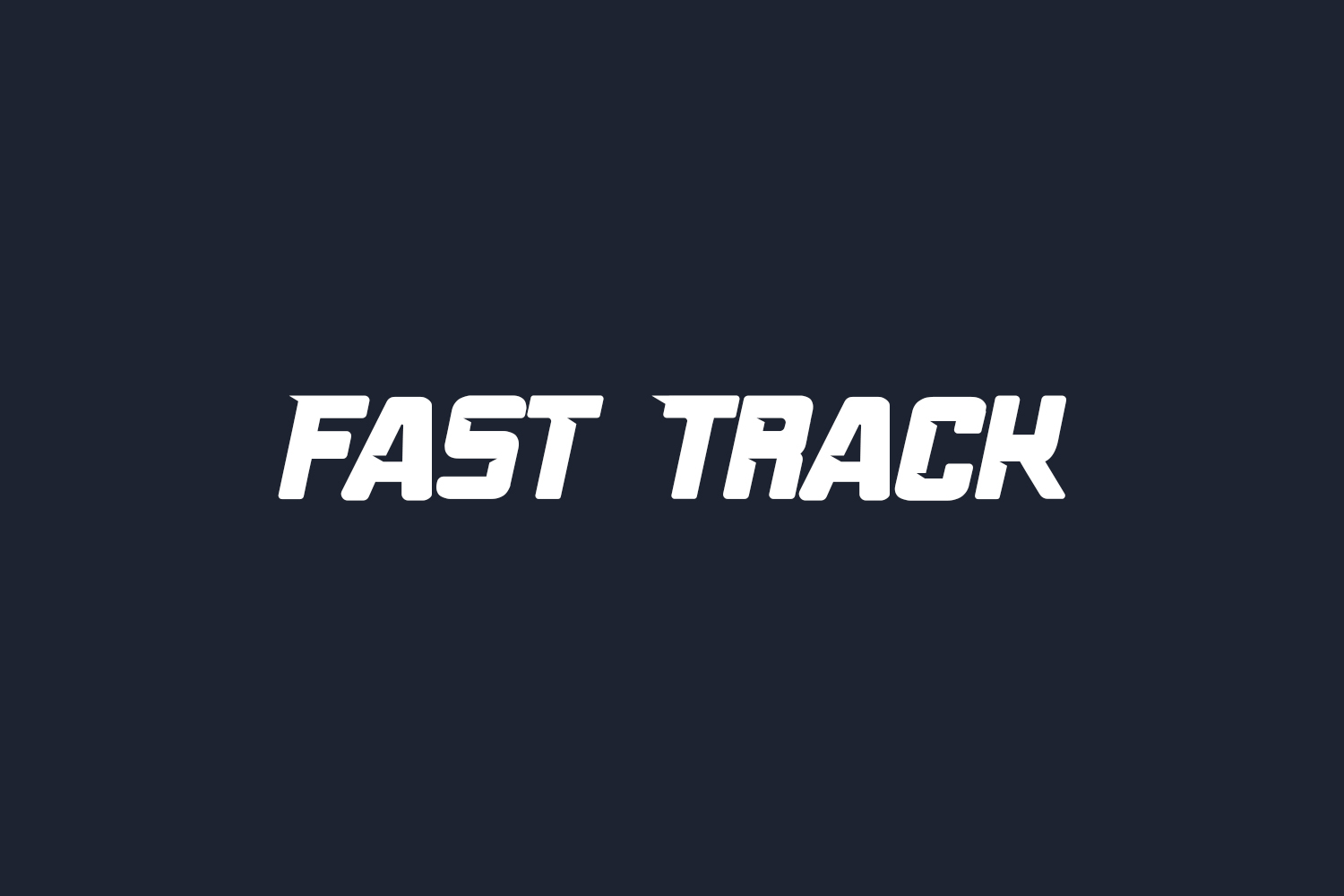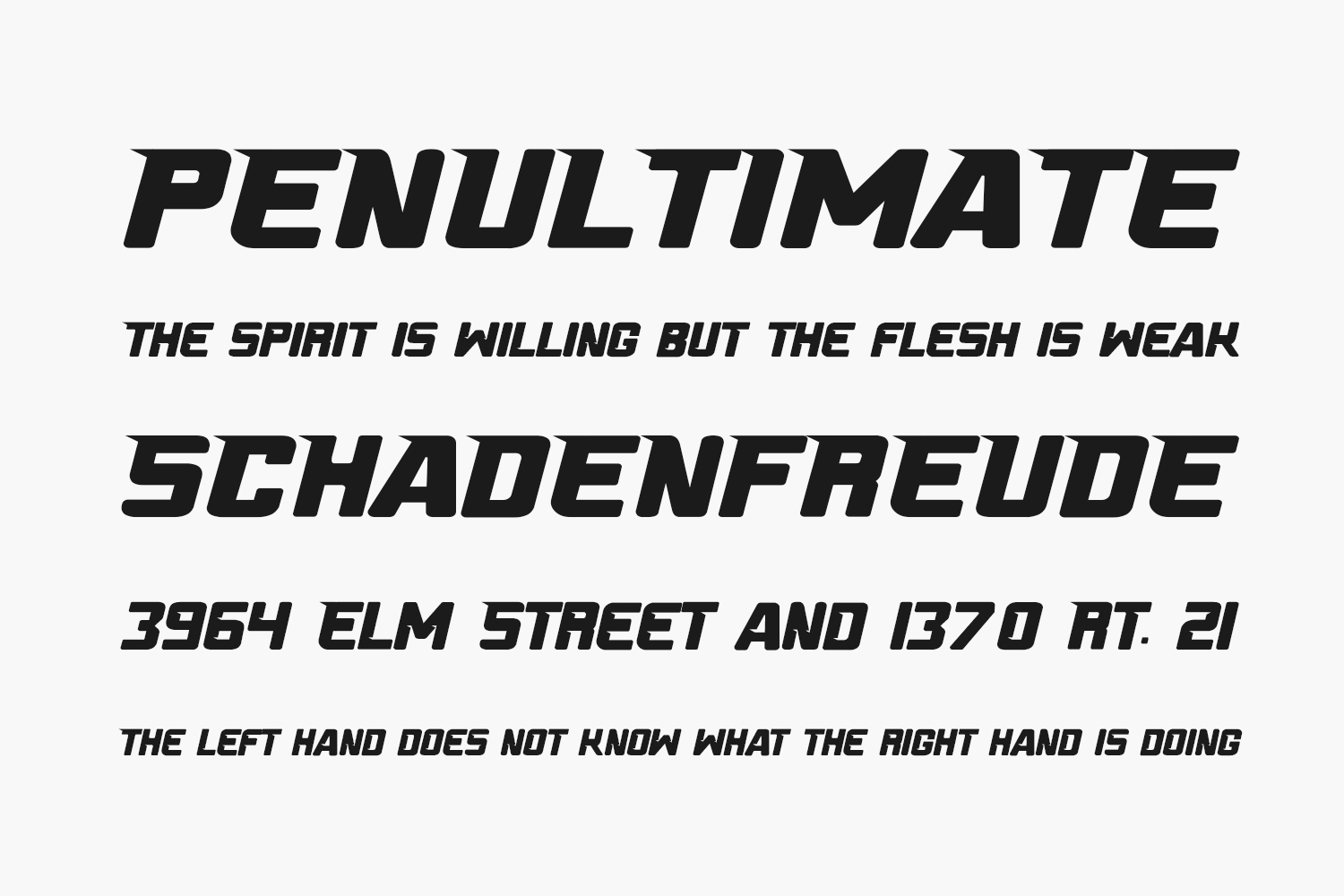
Fast Track Free Font is a cool, bold, and sporty display font. Add it to each of the events or projects that require an assertive, trendy touch. The only limit is your imagination. Fast Track Free Font was designed by Tokopress and is free for personal use only. Please purchase the full version for commercial use.